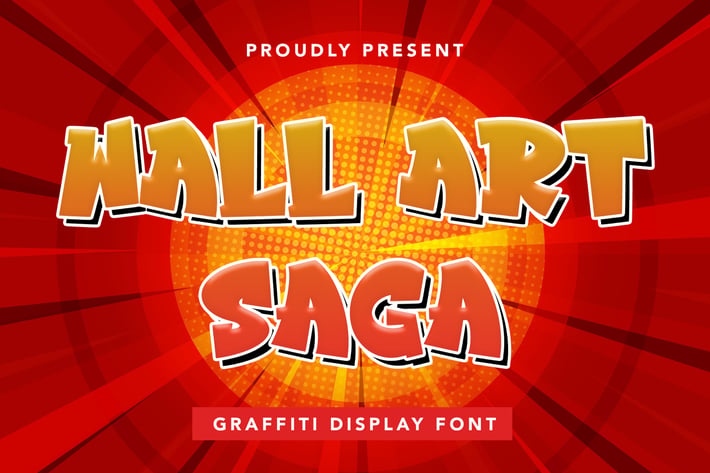
WallArtSaga - Graffiti Display Font
WallArtSaga - Graffiti Display Font contains a lowercase, uppercase, symbol, and also supports multi-language. There’s a lot of ligature in this font. WallArtSaga - Graffiti Display Font also comes with ligatures, stylistic alternates and many more.
this font suitable for fashion, branding, catalog and other design that you want.